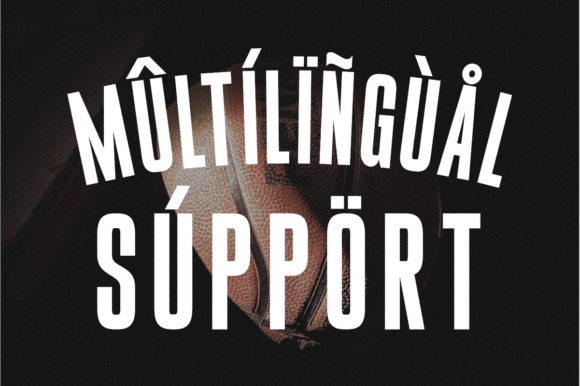
Gamelo Font
Gamelo is a condensed sans serif font with a bold, clean, and modern style. Its tall and narrow design makes it perfect for creating impactful headlines, posters, sports branding, esports logos, editorial layouts, advertising, and strong typographic designs. With its professional and versatile structure, Gamelo is ideal for projects that require a stylish yet powerful sans serif font.